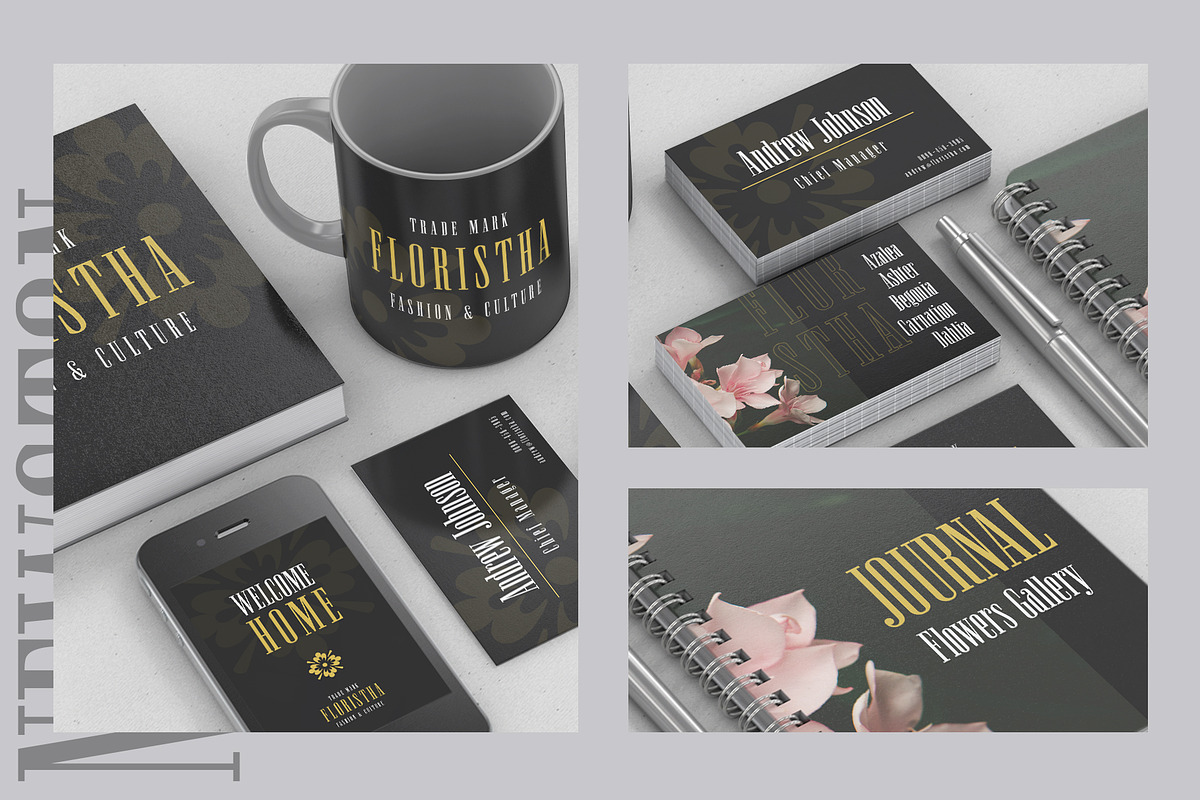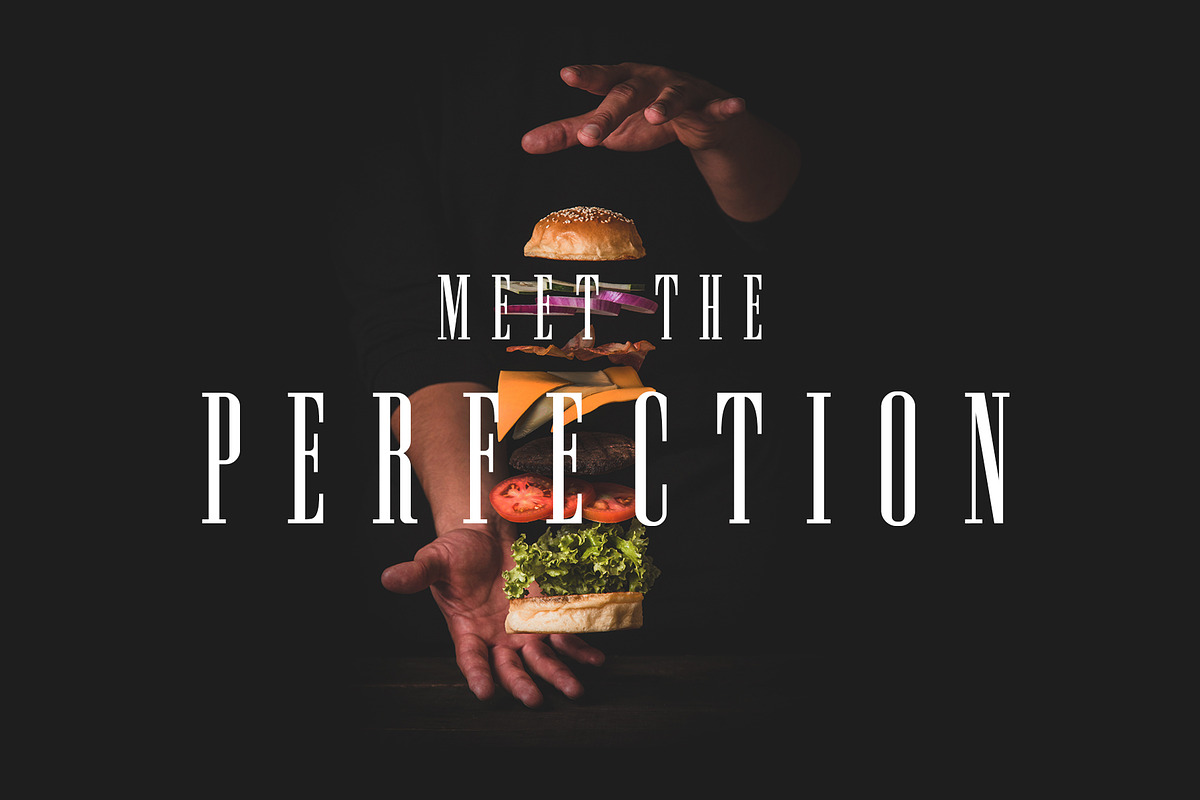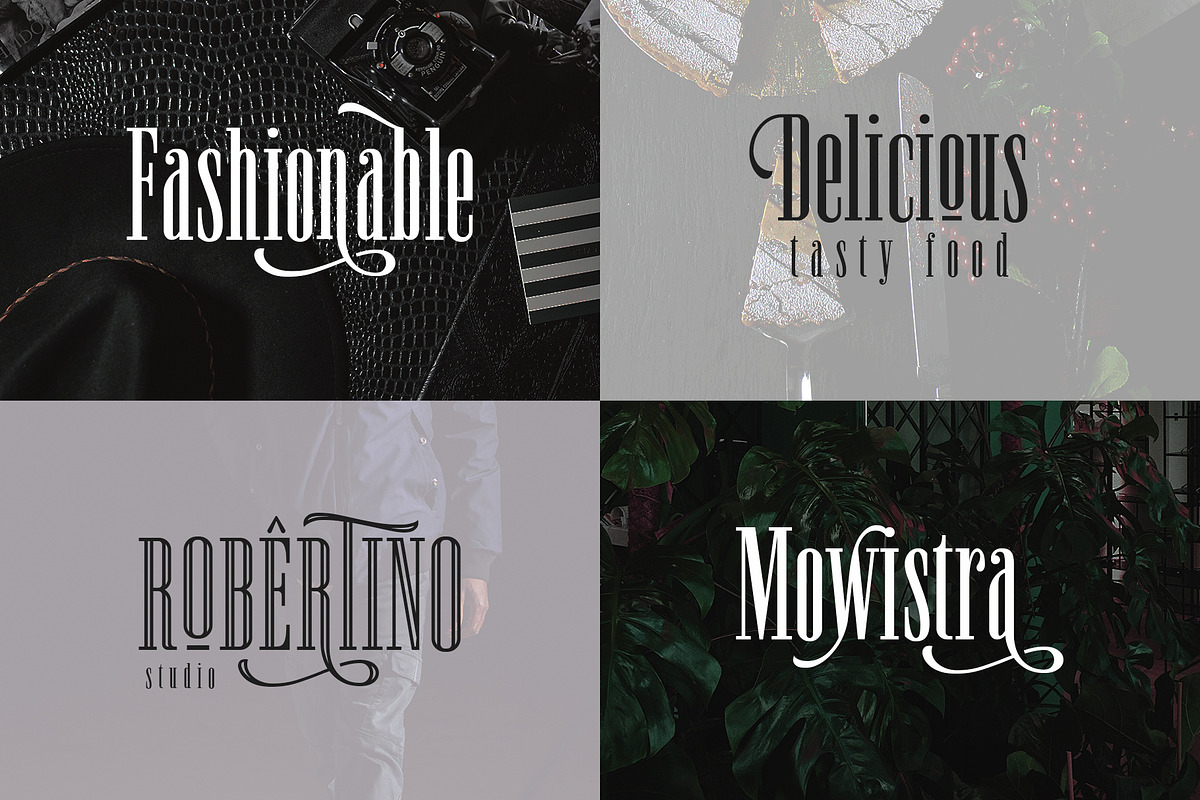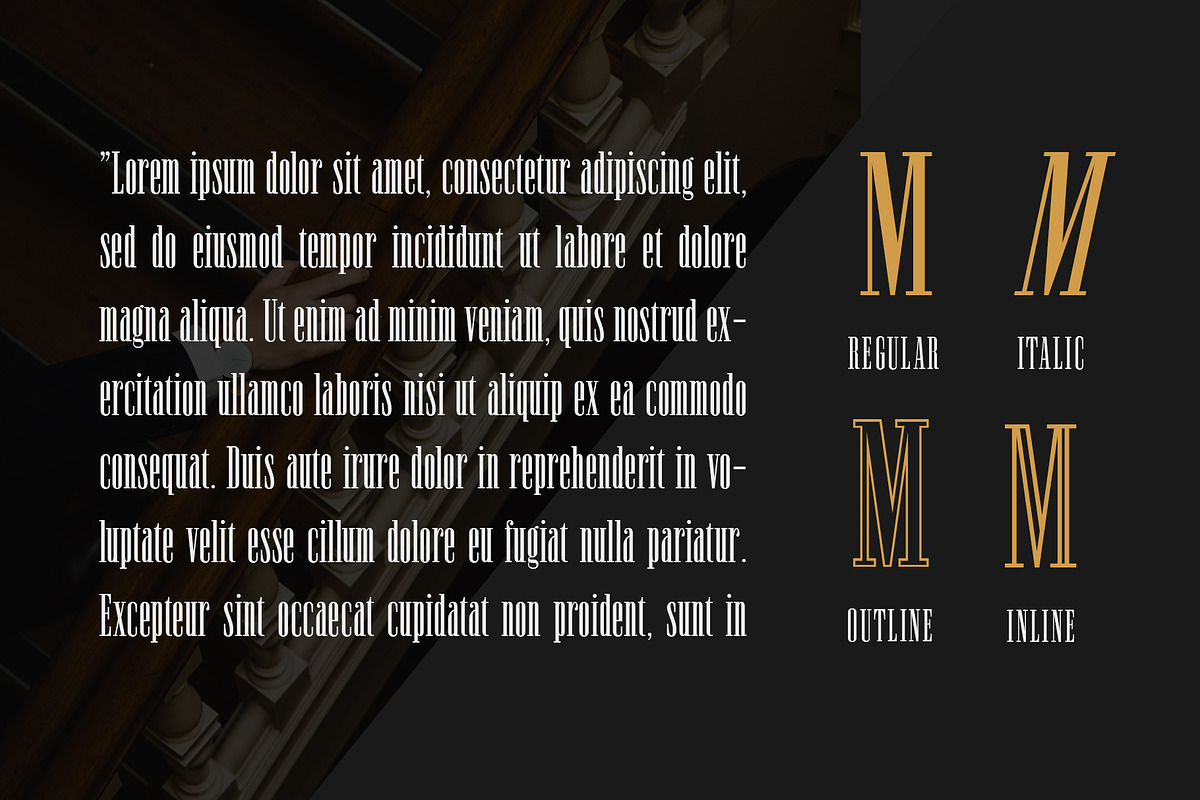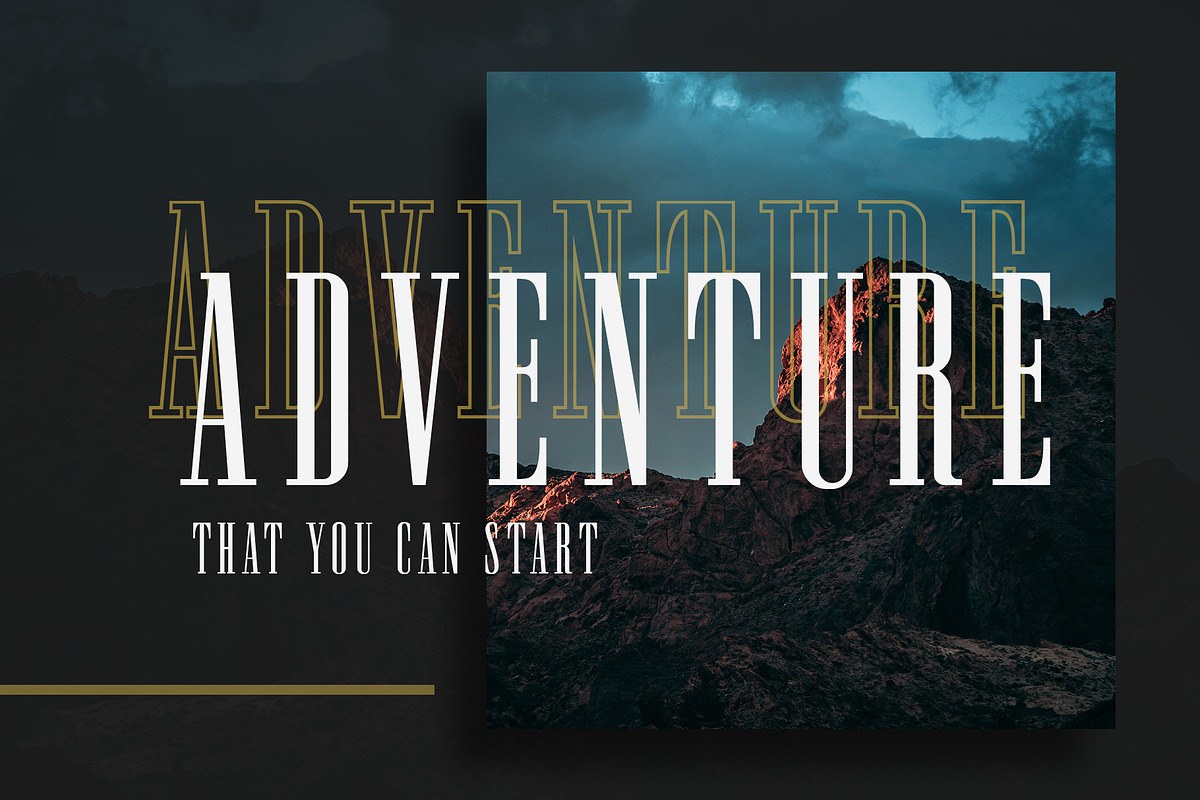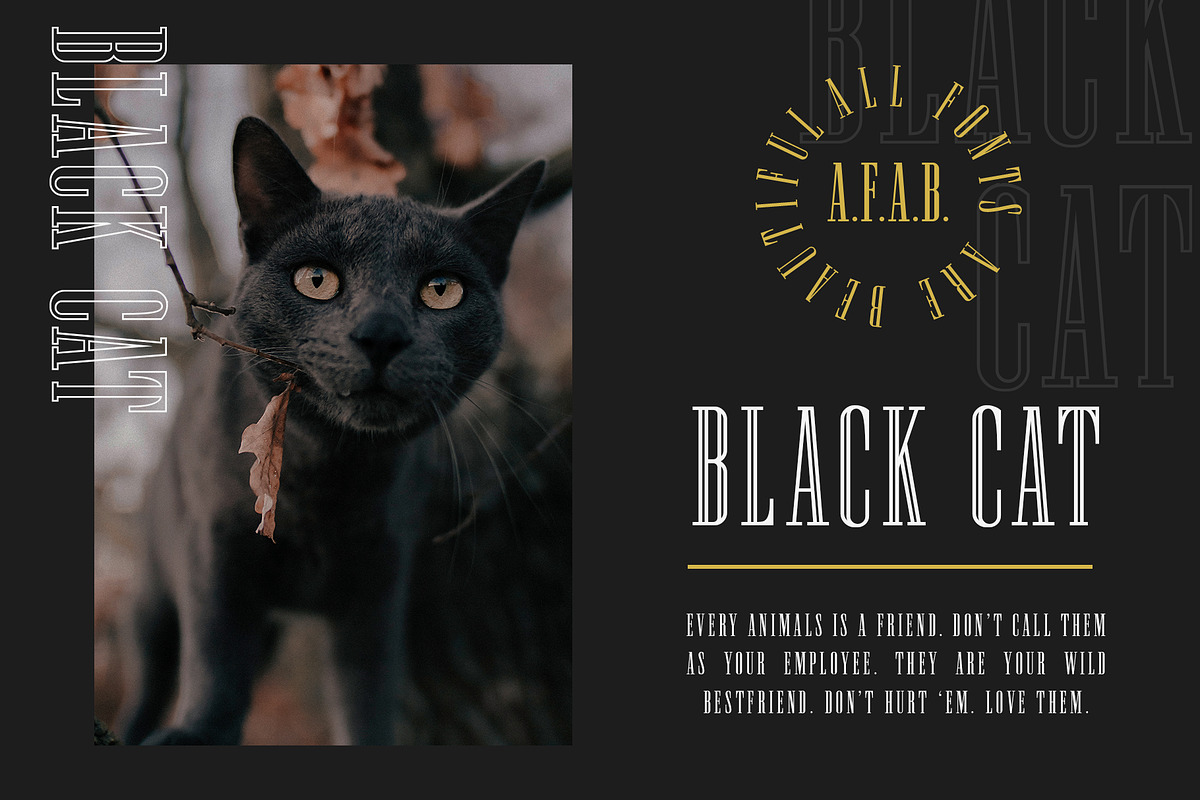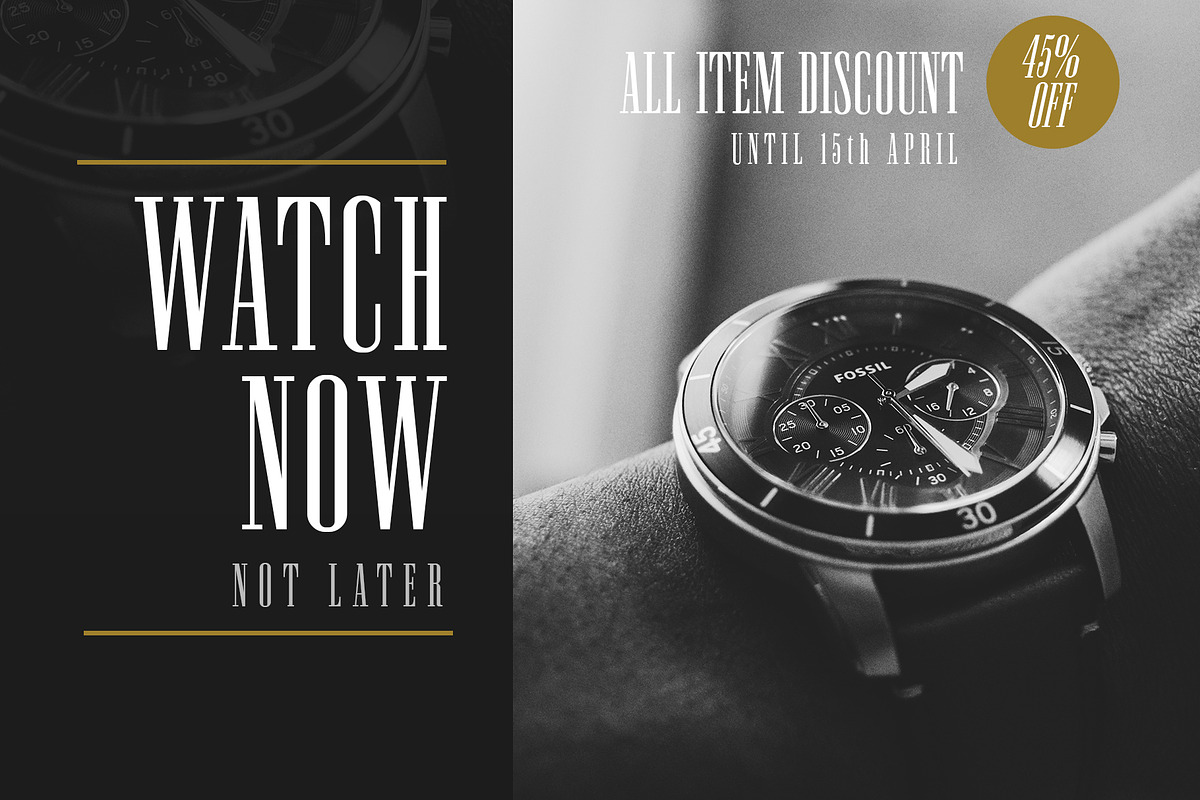
Newston - Stylish Serif Font
Introducing Newston minimalist - elegant serif font. Beautiful and playfully with 4 styles available. Made with medium contrast of the strokes that allow you to create more than headline. The spacing adjusted a bit tight that possible to fill empty space on your modern or typographic design.
Newston also complete with some stylistic alternates that allows you to create more beautiful design! Inspired by minimalist and decorative style, Newston has expanded to 4 styles :
Regular : Recommended for magazine cover, poster, flyer or website header.
Italic : Looks good to maximize the foreign language, verbality or motion effect.
Outline : Very good to combine with Regular to get some joyfull effect.
Inline : The strong strokes and empty space, gives the art deco style. Good for logo.
Overall, Newston is flexible to apply in many style such as minimalist, decorative, hipster, luxury, vintage and editorial. You can use this font for a t-shirt, corporate identity, magazine, banner, billboard, or storefront.